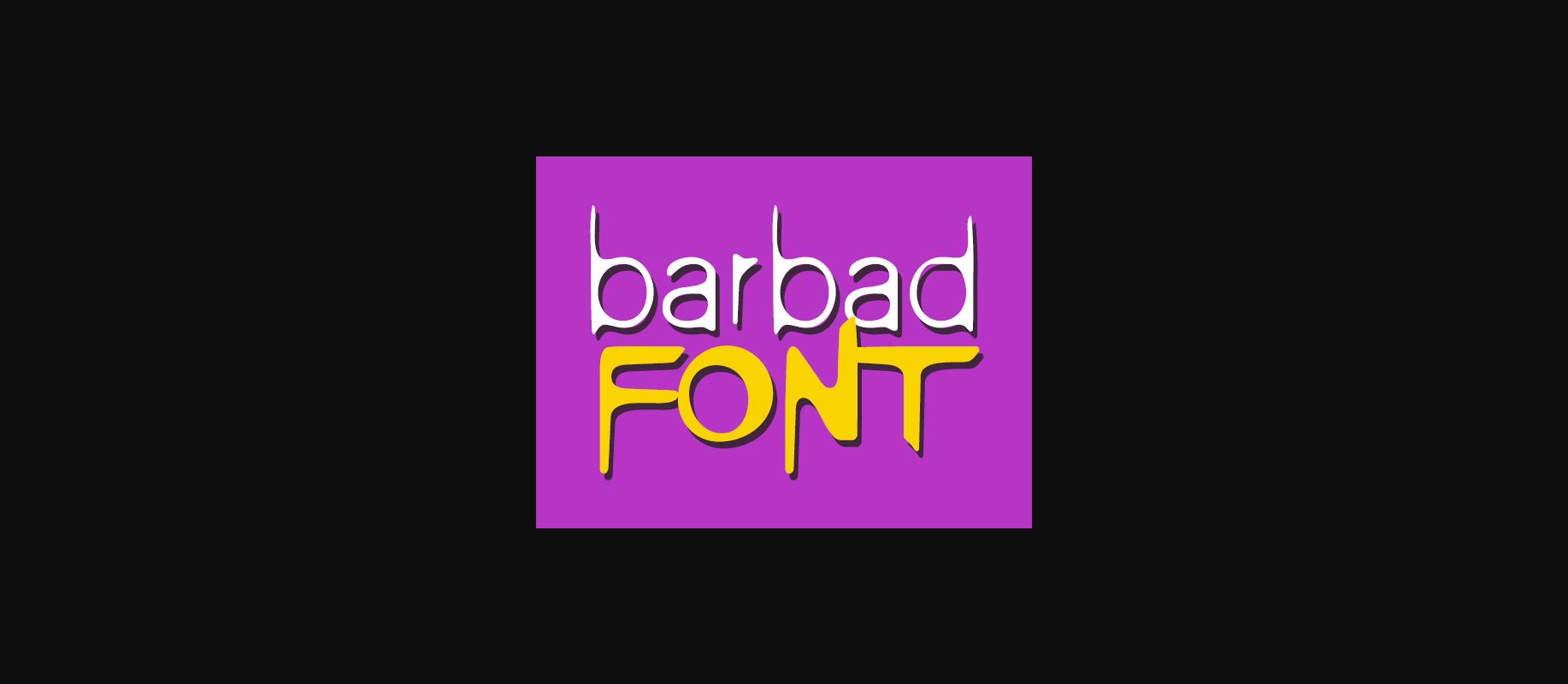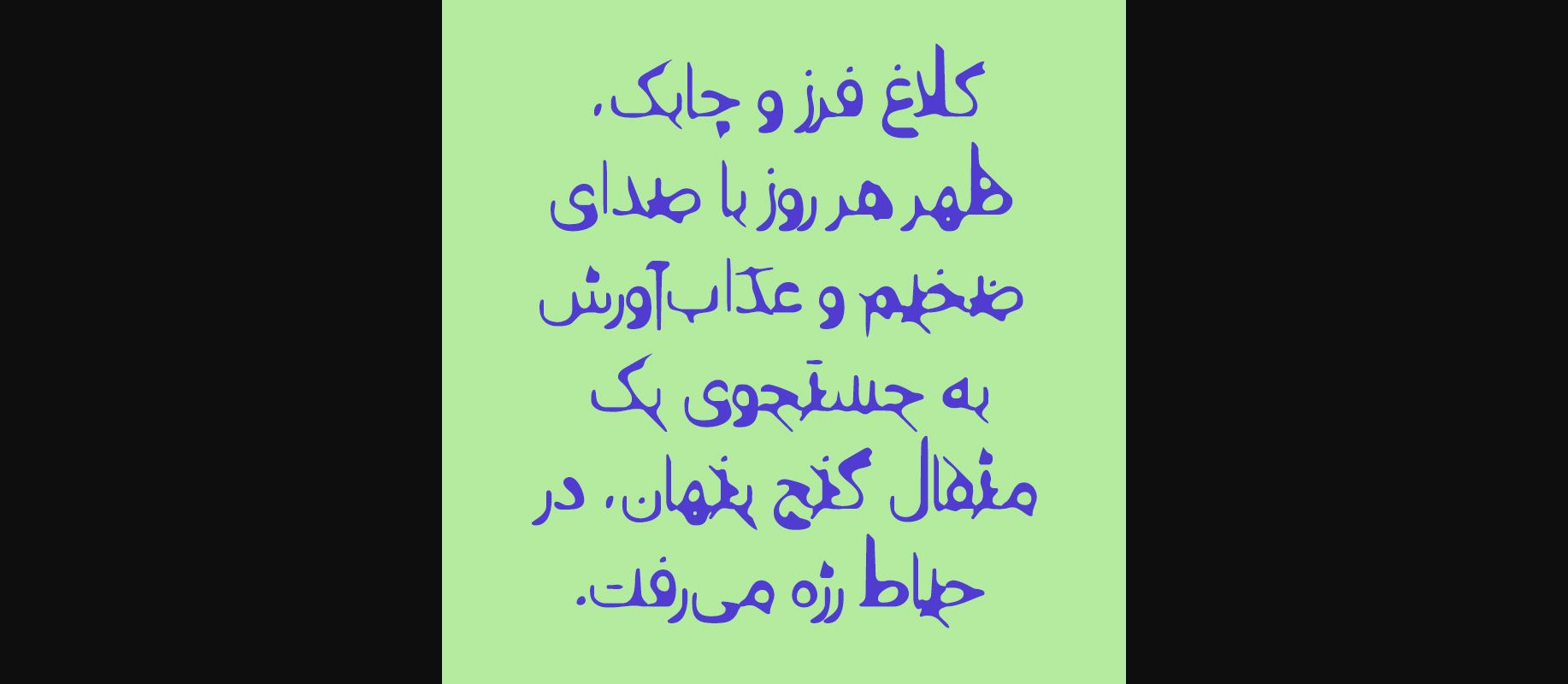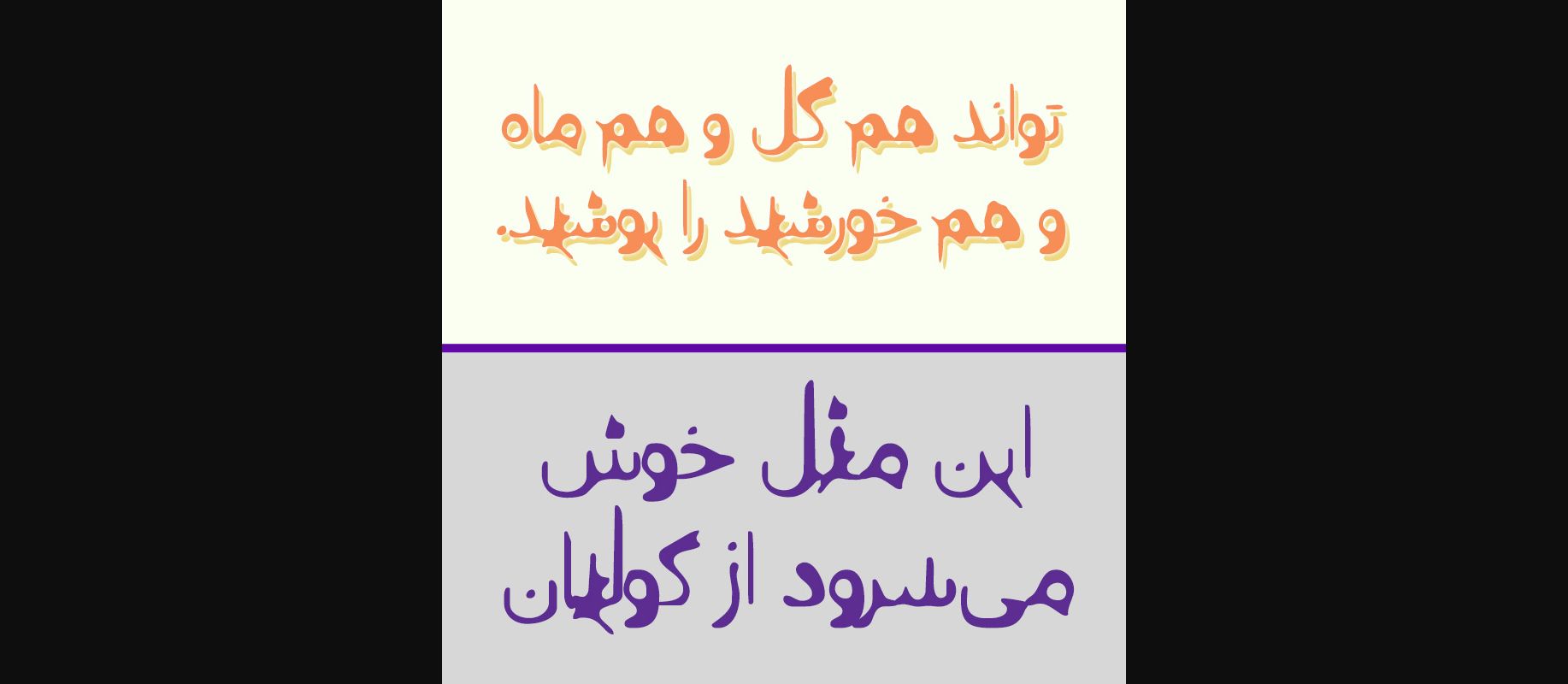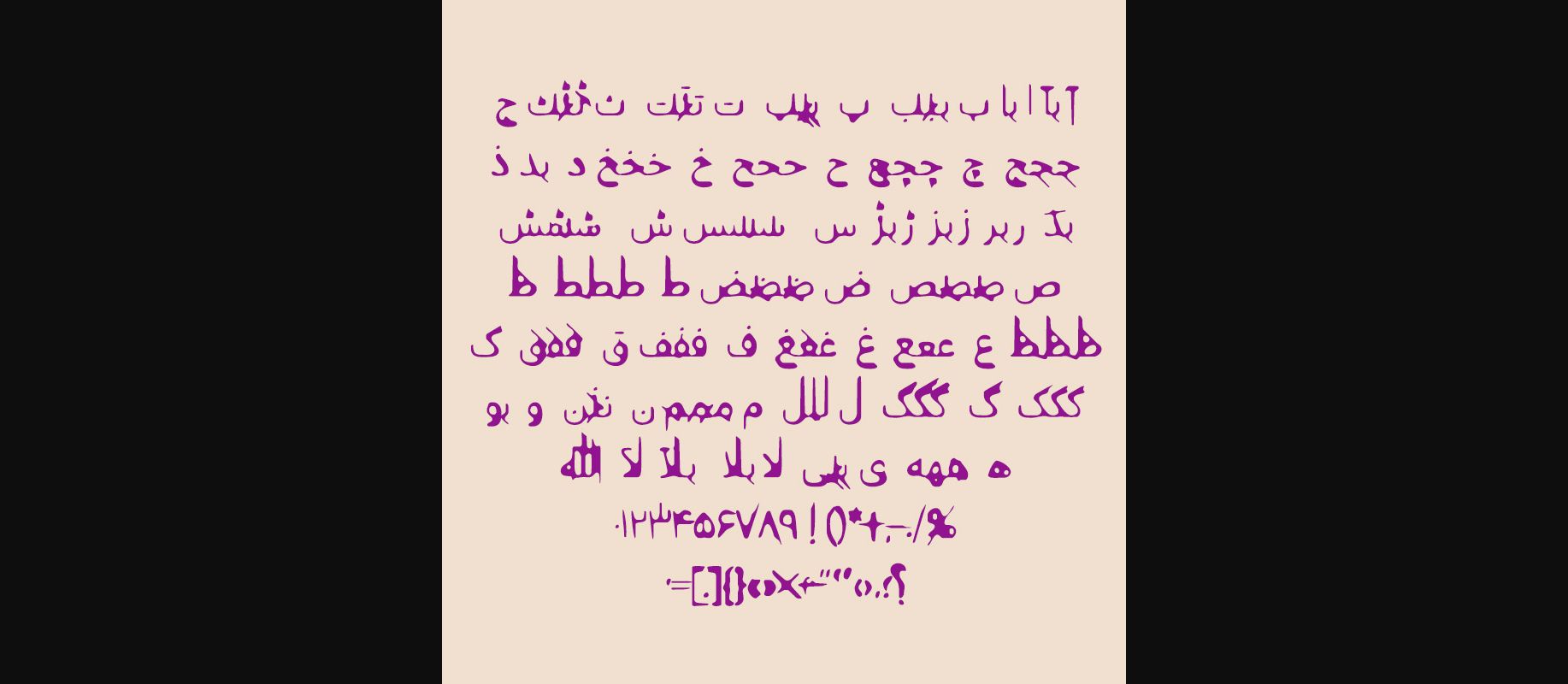
About Barbad Font
Barbad is a beautiful decorative font with a unique approach: heavy uppercase and thin lowercase characters comprise this font, making it suitable and unique for a wide range of friendly designs.